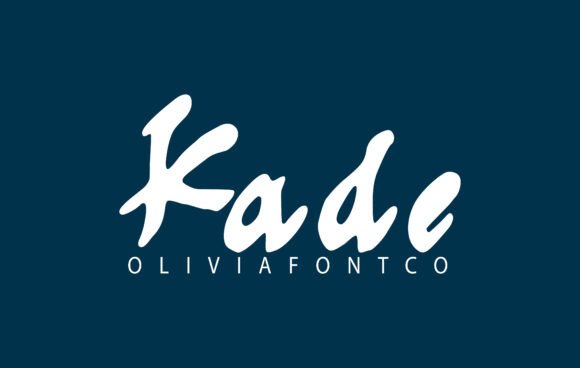
Kade Font: The Ultimate Handwritten Font for Creative Projects
In the world of typography, fonts play a crucial role in conveying the tone and personality of a brand or creative project. Among the numerous fonts available, Kade font stands out as a unique and authentic handwritten font with a romantic touch. Designed to be a true favorite among designers and creative enthusiasts, Kade font has the potential to elevate your projects to new heights. In this article, we’ll explore the features, benefits, and uses of Kade font, and why it’s an excellent choice for your next creative endeavor.
What is Kade Font?
Kade font is a carefully crafted handwritten font that exudes a sense of romance and elegance. Its authentic and natural look makes it perfect for a wide range of applications, from magazine headlines to social media graphics, branding, wedding invitations, and more. The font’s legibility and versatility make it an excellent choice for both title and body text, allowing you to experiment with different styles and layouts.
Key Features of Kade Font
- Authentic Handwritten Look: Kade font boasts a genuine handwritten appearance that adds a personal touch to your projects.
- Romantic Touch: The font’s elegant and cursive style makes it perfect for projects that require a romantic or sophisticated feel.
- Legible and Versatile: Kade font is designed to be easy to read, making it suitable for both title and body text.
- Multipurpose: The font can be used for various design projects, including magazine headlines, social media graphics, branding, wedding invitations, and more.
Benefits of Using Kade Font
Kade font offers several benefits that make it an attractive choice for designers and creative enthusiasts. Some of the advantages of using Kade font include:
- Unique and Distinctive: Kade font’s authentic handwritten look sets it apart from other fonts, making your projects stand out from the crowd.
- Time-Saving: The font’s legibility and versatility save you time and effort in designing and formatting your text.
- Easy to Read: Kade font’s clear and readable design ensures that your message is conveyed effectively to your audience.
- Customizable: The font can be easily customized to fit your project’s specific needs, allowing you to experiment with different styles and layouts.
Use Cases for Kade Font
Kade font’s versatility makes it suitable for a wide range of design projects. Here are some use cases where Kade font excels:
- Magazine Headlines: Kade font’s elegant and cursive style makes it perfect for magazine headlines, adding a touch of sophistication to your publication.
- Social Media Graphics: The font’s authentic handwritten look and legibility make it ideal for social media graphics, such as Facebook posts, Instagram captions, and Twitter headers.
- Branding: Kade font can be used to create a unique and distinctive brand identity, setting your business apart from competitors.
- Wedding Invitations: The font’s romantic touch makes it perfect for wedding invitations, adding a touch of elegance and sophistication to your special day.
- Cards and Stationery: Kade font can be used to create beautiful and personalized cards and stationery, making your correspondence stand out.
Tips for Using Kade Font Effectively
To get the most out of Kade font, here are some tips for using it effectively:
- Experiment with Different Sizes: Kade font looks great in various sizes, so experiment with different font sizes to find the perfect fit for your project.
- Pair with Other Fonts: The font can be paired with other fonts to create a unique and visually appealing combination.
- Use for Emphasis: Kade font’s elegant and cursive style makes it perfect for emphasis, such as highlighting important information or adding a touch of sophistication to your text.
- Customize to Fit Your Brand: The font can be customized to fit your brand’s specific needs, allowing you to create a consistent visual identity.
Kade font is an exceptional handwritten font that offers a unique and authentic look with a romantic touch. Its legibility, versatility, and multipurpose design make it an excellent choice for various creative projects. Whether you’re a designer, entrepreneur, or creative enthusiast, Kade font has the potential to elevate your projects to new heights. With its numerous benefits, use cases, and tips for effective use, Kade font is an excellent addition to your typography arsenal.